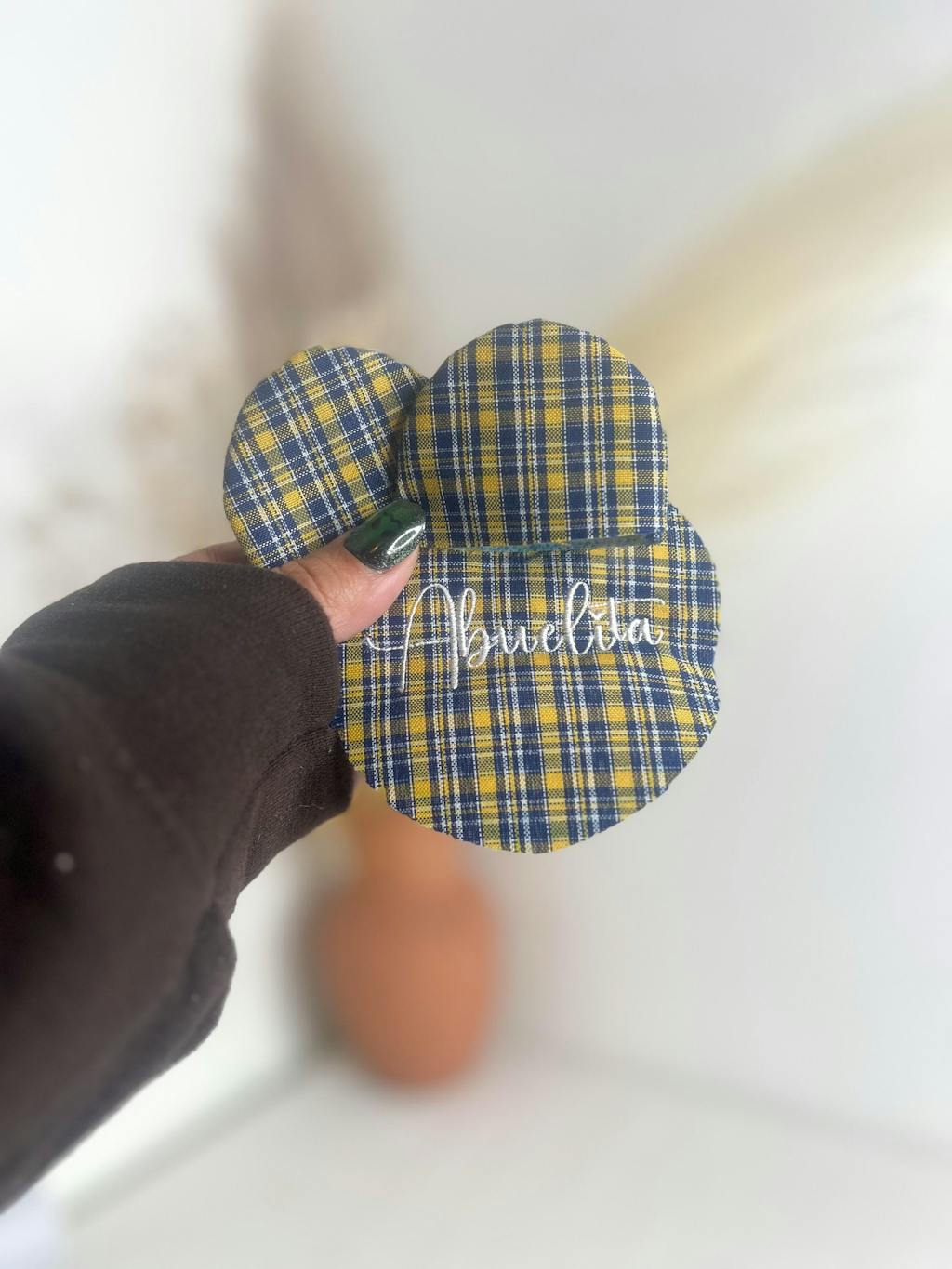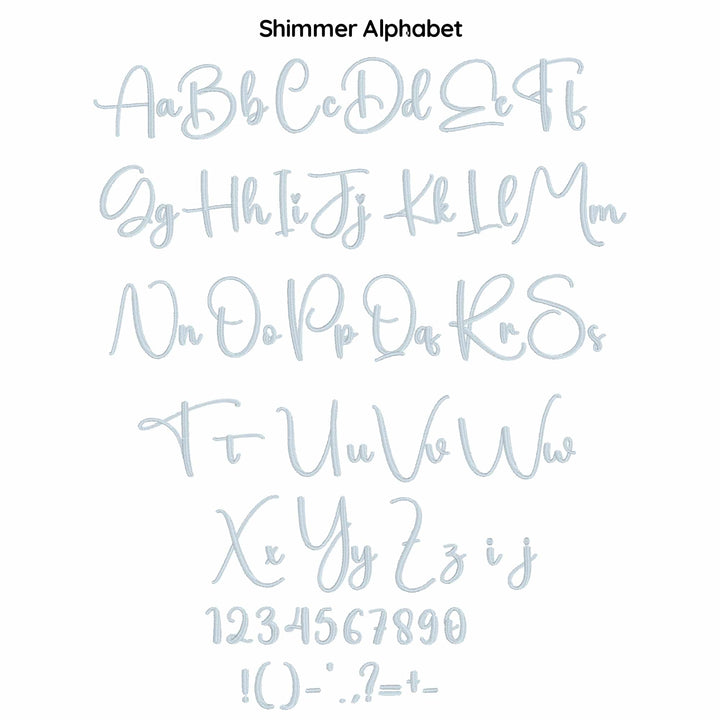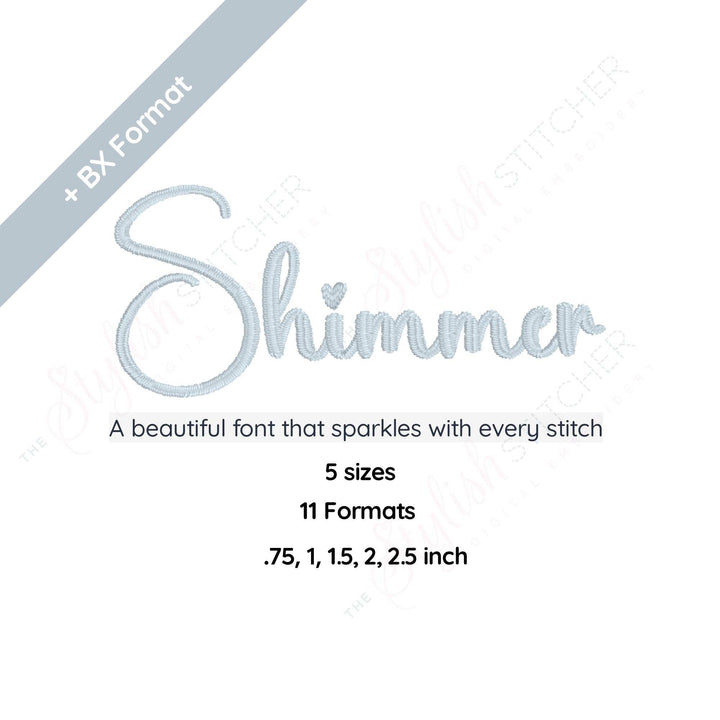
Shimmer Digital Embroidery Font
Digital Embroidery Font
Add a touch of glamour and elegance to your embroidery projects with Shimmer, the digital embroidery font inspired by sparkling diamonds and glittering gems. This versatile font is perfect for adding a touch of luxury to your designs and creating stunning, eye-catching finished pieces that will truly shine.